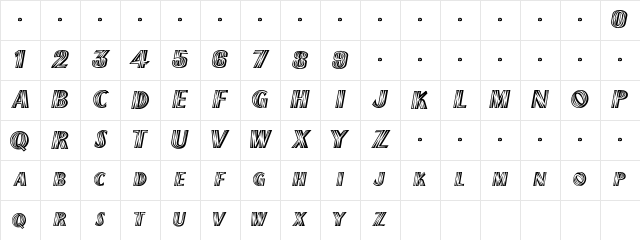
ChiliPepper ExtraBold Free Font
ChiliPepper ExtraBold
Design Context for ChiliPepper
ChiliPepper is a composed and adaptable typeface that performs quietly and consistently across a wide range of design contexts. Its bold stroke weight gives it real presence on the page.
Pro Tip: Use ChiliPepper in both headline and body roles to test its range before committing to a single application.